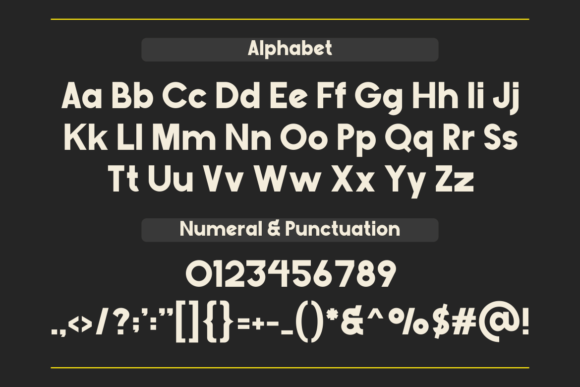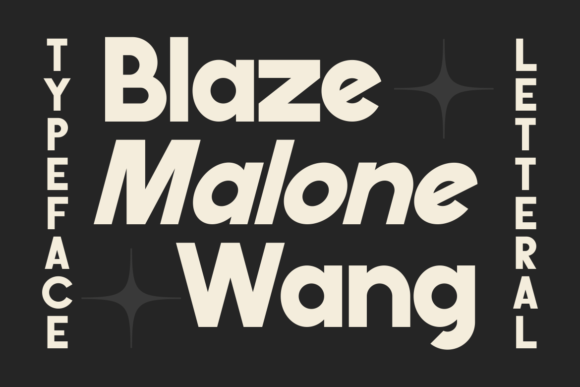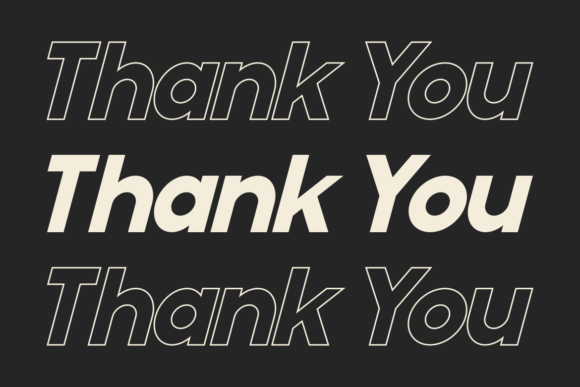
Introducing Anallop Font: The Bold and Assertive Sans Serif for Your Creative Arsenal
In the world of design, fonts play a pivotal role in conveying messages, evoking emotions, and creating lasting impressions. Among the myriad of typefaces available, Anallop Font stands out as a bold and assertive sans serif font that can elevate any creative project to new heights. Whether you’re a seasoned designer or a crafty enthusiast, Anallop is an incredible asset to your font library, capable of making a significant impact across various topics and mediums.
The Anatomy of Anallop Font
Anallop Font boasts a clean and modern sans serif design, characterized by its straightforward and uncomplicated lines. This bold typeface is meticulously crafted to grab attention, exuding confidence and assertiveness in every letter. The font’s design ensures excellent legibility, making it suitable for a wide range of applications, from digital screens to print materials.
One of the key strengths of Anallop Font is its versatility. This font is not limited to a specific genre or industry; instead, it can be seamlessly integrated into various creative projects. Whether you’re working on:
- Branding and logos: Anallop’s bold and assertive nature makes it perfect for creating memorable logos and brand identities that stand out.
- Advertising and marketing materials: Its clear and impactful design ensures your message gets across effectively, grabbing the audience’s attention.
- Web design and digital content: Anallop enhances user experience with its readability and modern aesthetic, making it ideal for headings, titles, and emphasis.
- Print and editorial projects: From brochures and posters to magazines and books, Anallop adds a touch of modern sophistication and professionalism.
Why Choose Anallop Font?
With so many fonts available, what sets Anallop apart? Here are a few compelling reasons to consider adding Anallop to your font collection:
- Uniqueness: Anallop offers a distinctive look that can help your designs stand out in a crowded marketplace.
- Legibility: Its clear and simple design ensures your message is communicated effectively, across various mediums and in different sizes.
- Flexibility: Anallop can be used for both headlines and body text, offering flexibility in your design projects.
- Timelessness: The classic sans serif design ensures that your work remains relevant and stylish for years to come.
Tips for Using Anallop Font Effectively
To maximize the impact of Anallop Font in your designs, consider the following tips:
- Mix and match: Combine Anallop with other fonts to create visual interest and hierarchy in your designs.
- Play with sizes: Use Anallop in various sizes to emphasize certain elements and create a dynamic layout.
- Experiment with colors: While Anallop’s design stands out on its own, experimenting with different colors can further enhance its appearance and suitability for your project.
Anallop Font is more than just a typeface; it’s a design powerhouse that can transform your creative projects with its bold and assertive presence. Its versatility, legibility, and timeless design make it an essential addition to any font library. Whether you’re a professional designer or a DIY enthusiast, Anallop is ready to elevate your work and make a lasting impression on your audience. So, why wait? Discover the potential of Anallop Font today and take your designs to new heights!